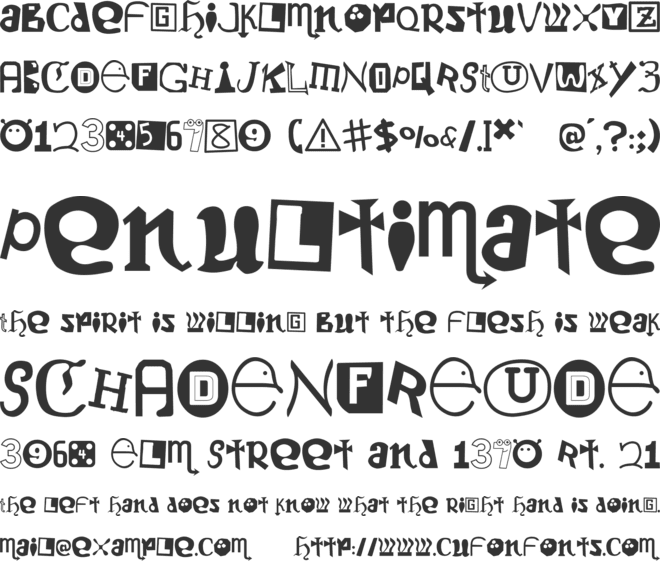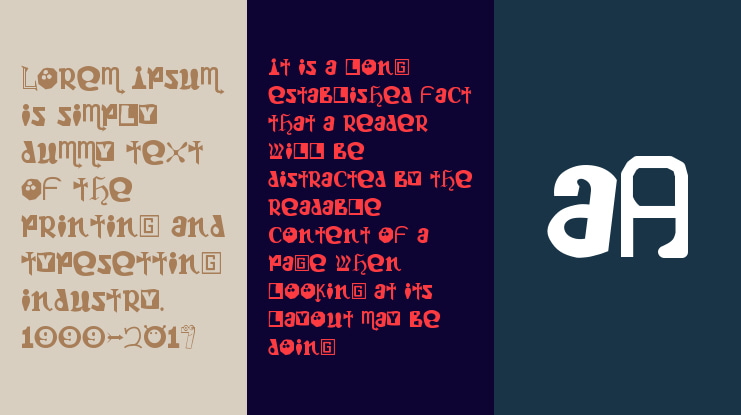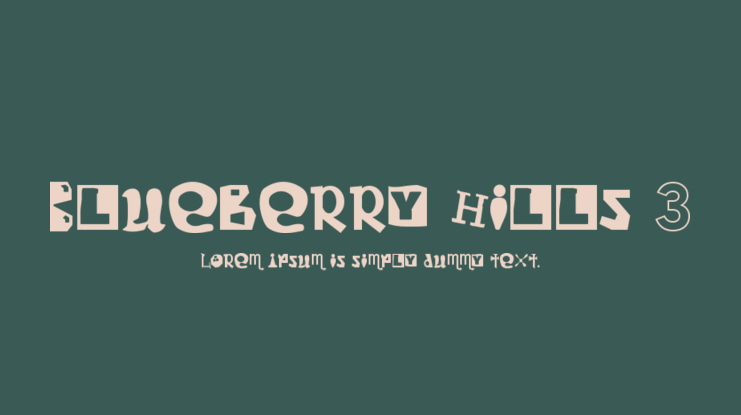
Blueberry Hills 3 Font
Blueberry Hills 3 is the third and, so far, last of the Blueberry Hills series of ransom note fonts. This bids the farewell of the font series to celebrate a new phantasmal style of mixed-up letters.
Blueberry Hills 3 Phantasmic font